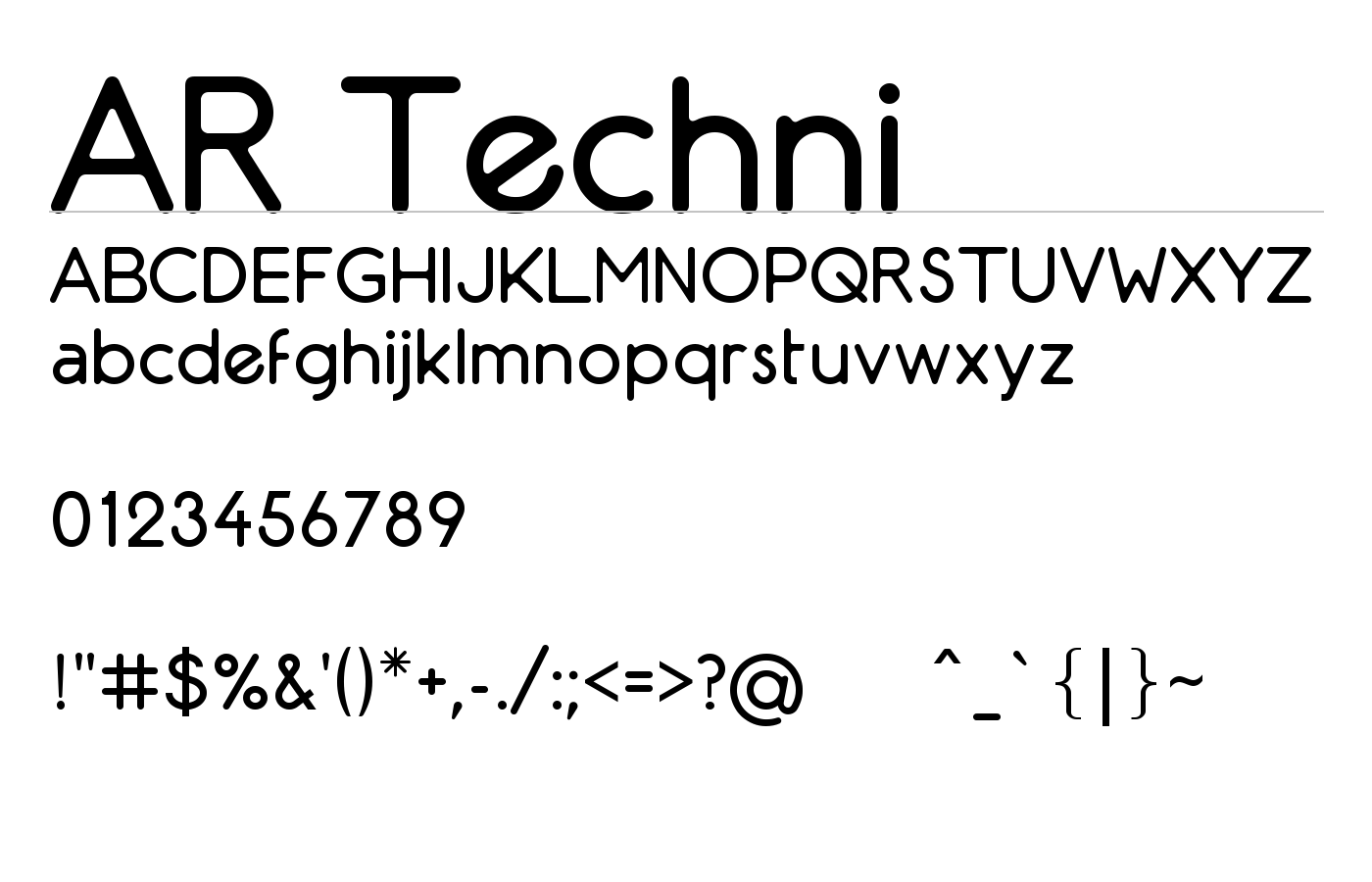
AR Techni is a clean, geometric sans serif font with a technical and modern feel. Its medium weight and open letterforms, combined with subtle rounded edges, create a friendly yet precise appearance ideal for technology, engineering, and contemporary design projects. Versatile and easy to read, it works well for both headlines and body text in digital interfaces, branding, and editorial use.
AR Techni Font
About AR Techni Font
| Font family | AR Techni Font |
| Designer | Heber Xavier Arroyo Arce |